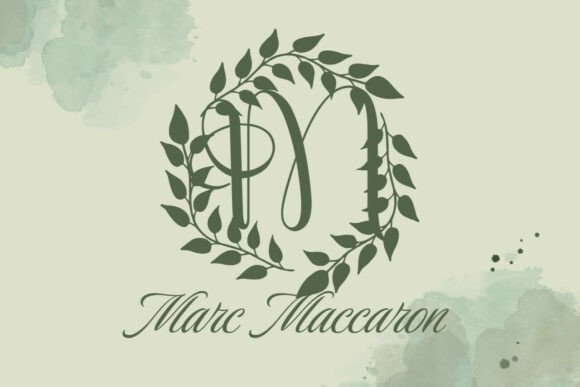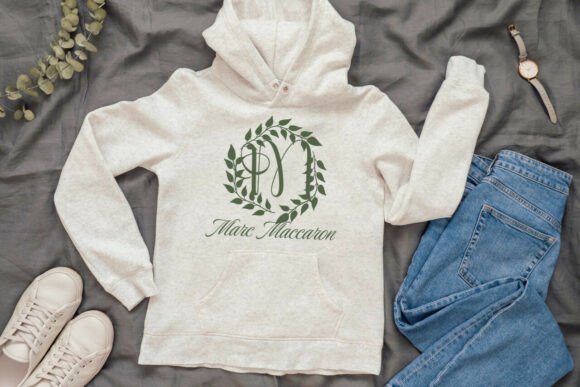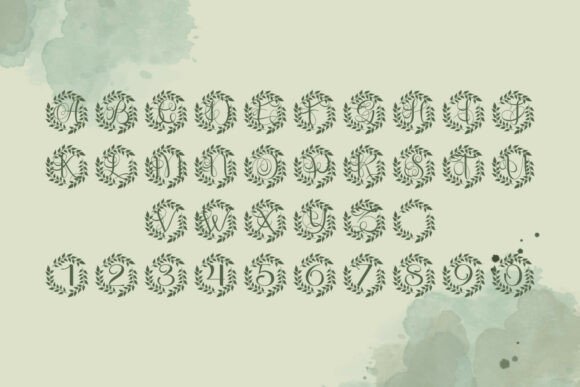
Introduction to Monarcelle Monogram Font
Meet Monarcelle, the Monogram Font Monarcelle Monogram Font turns simple initials into poised, elegant marks.
Lines feel smooth Curves stay balanced.
Key Features of Monarcelle Monogram Font